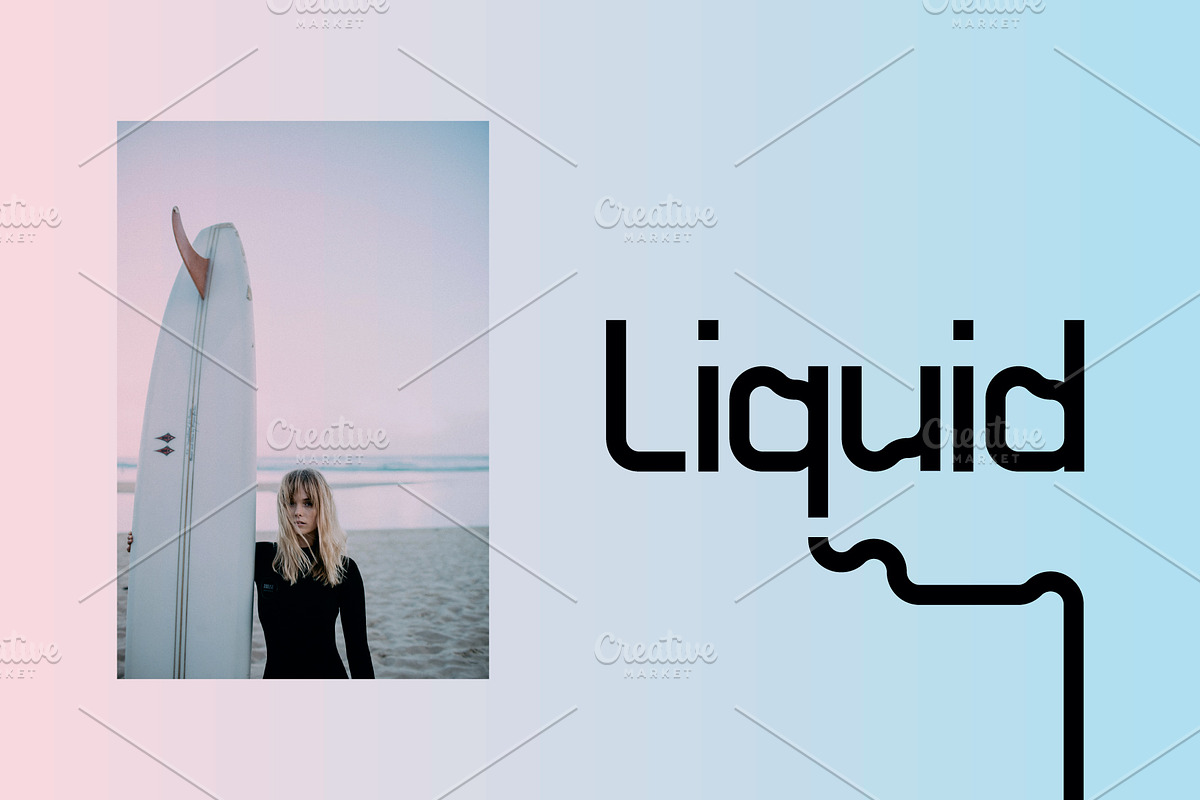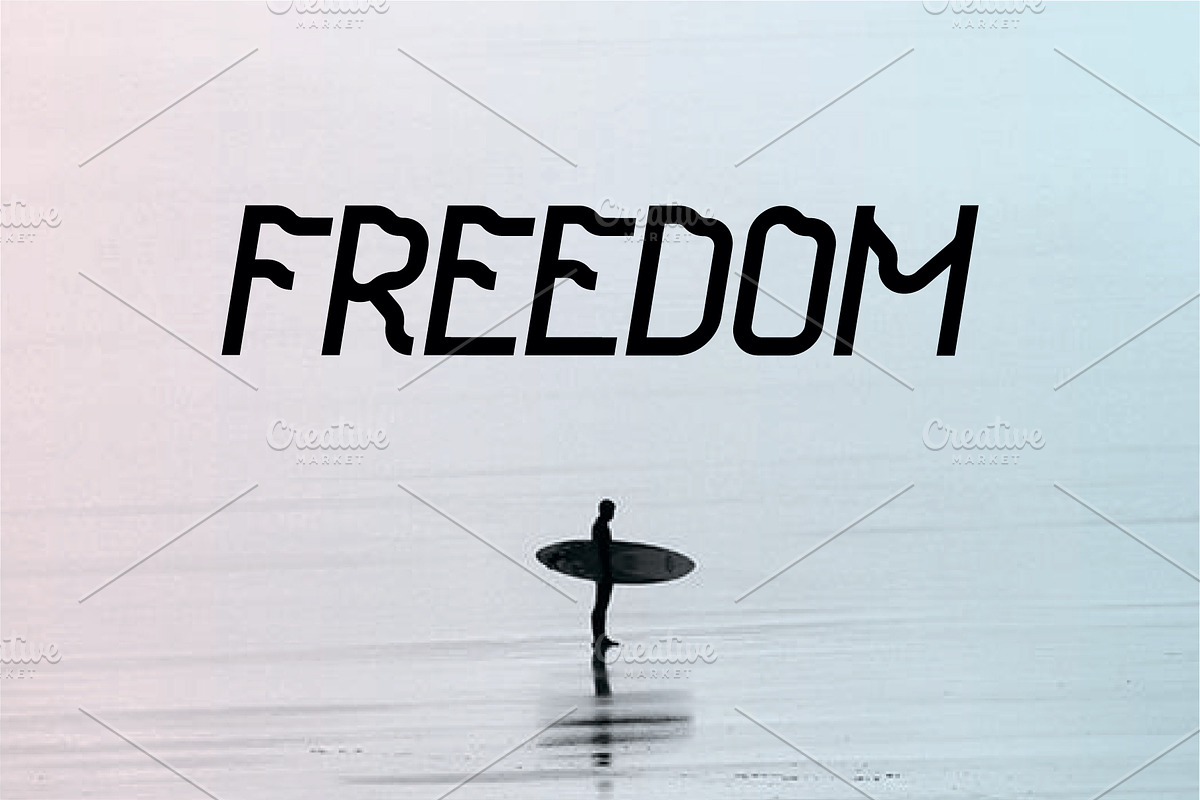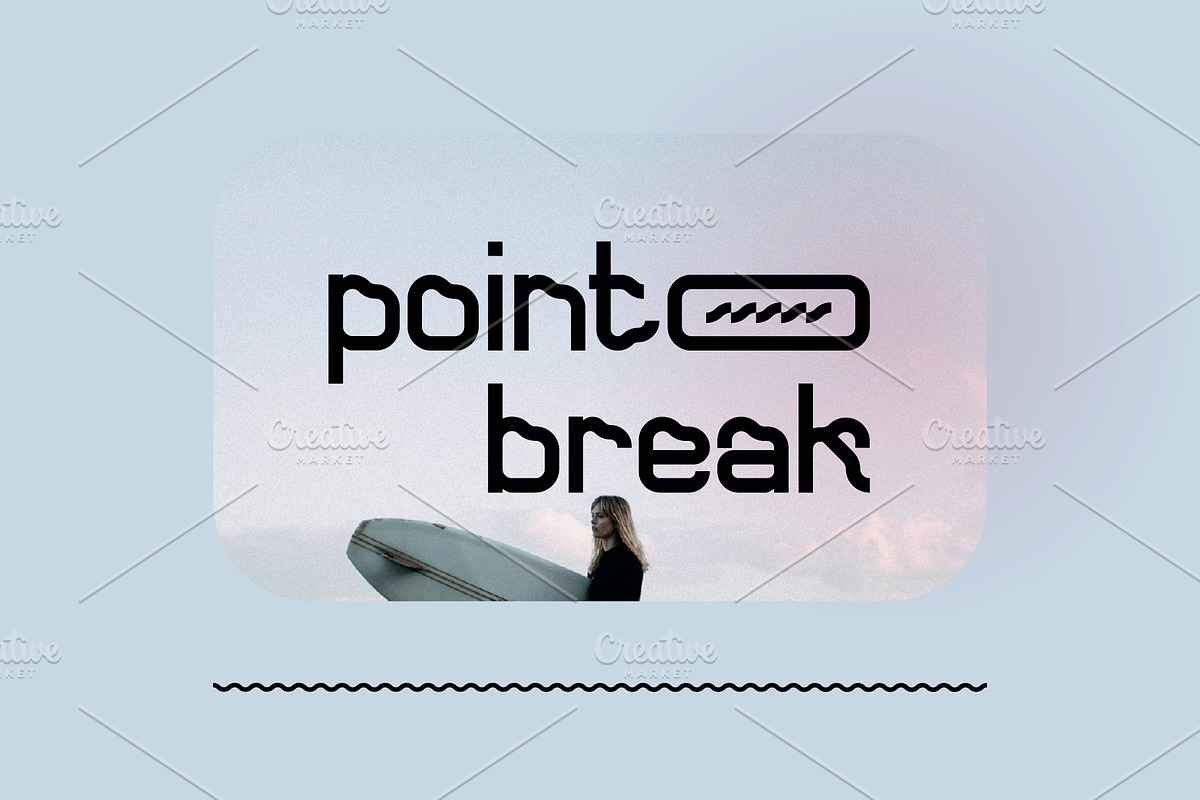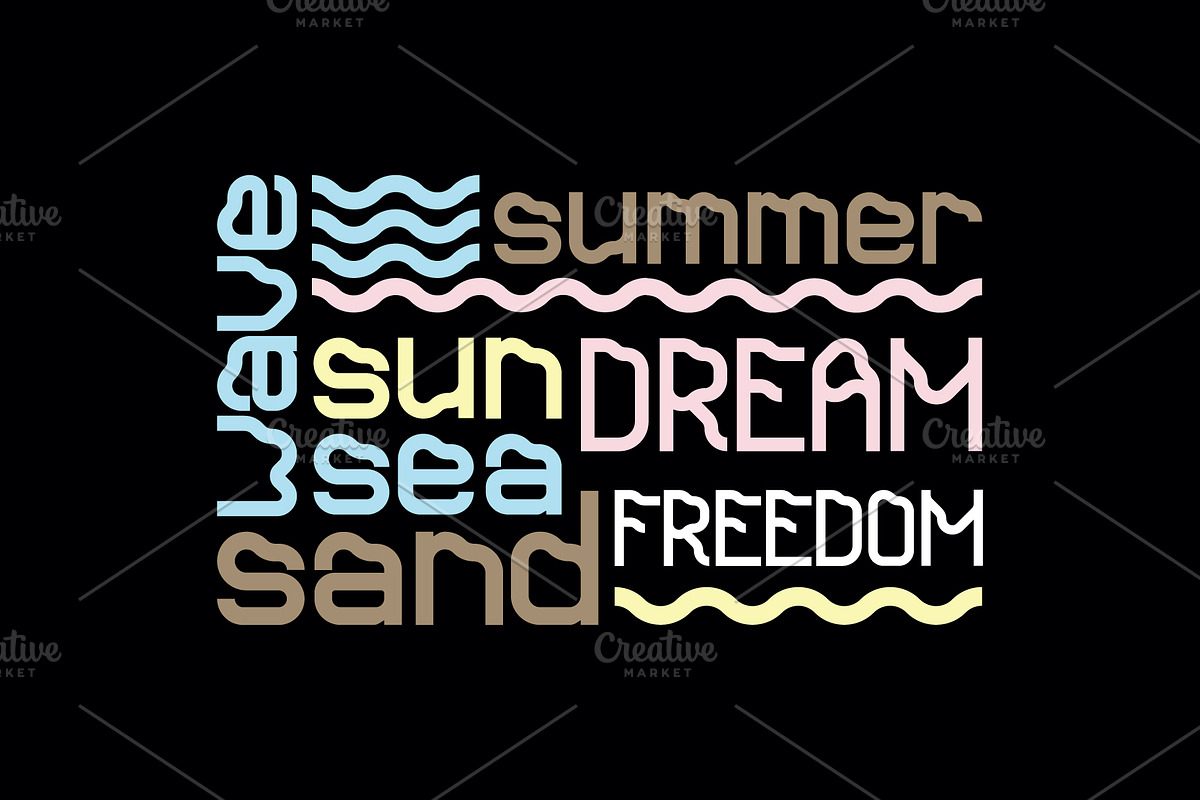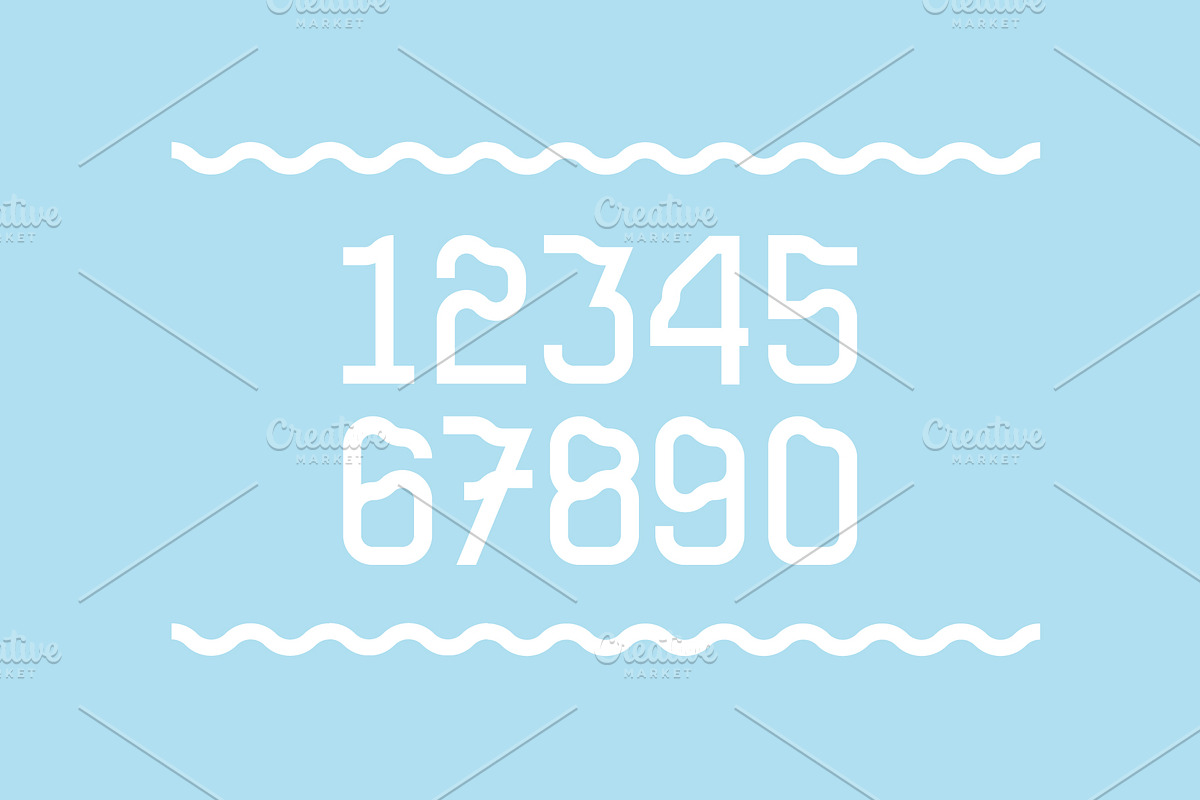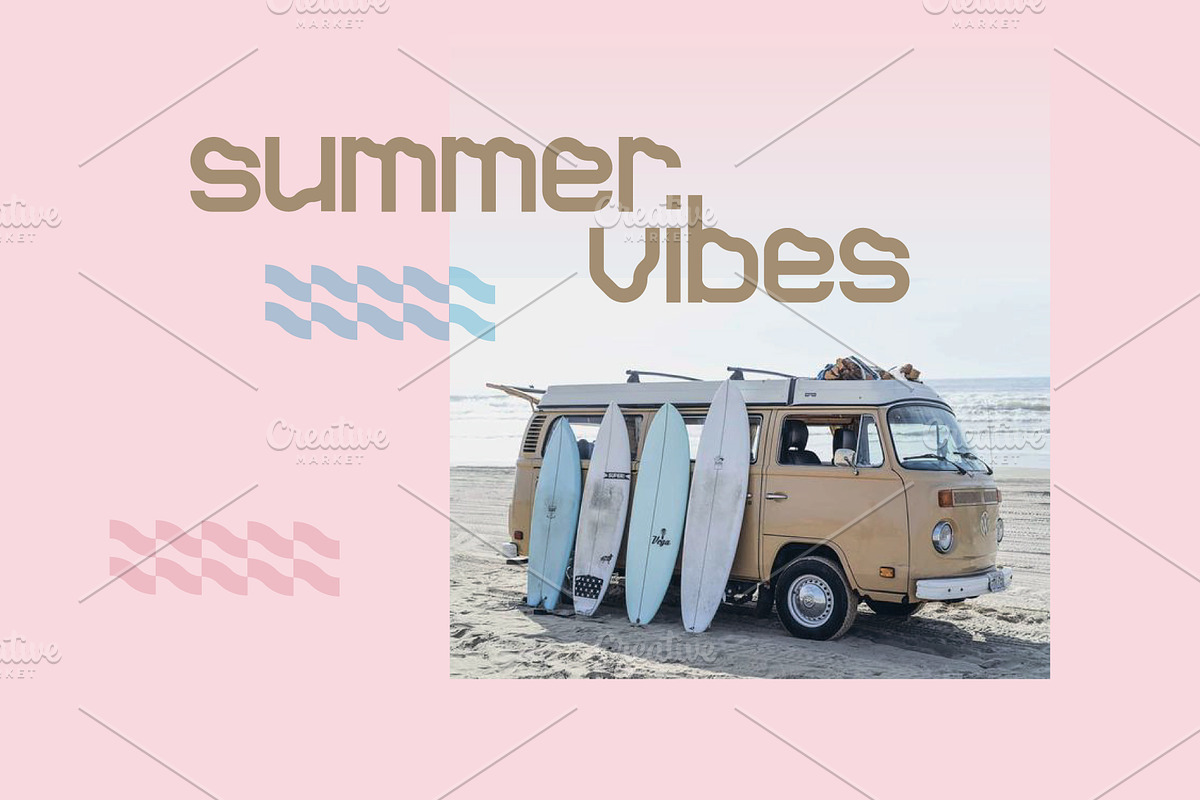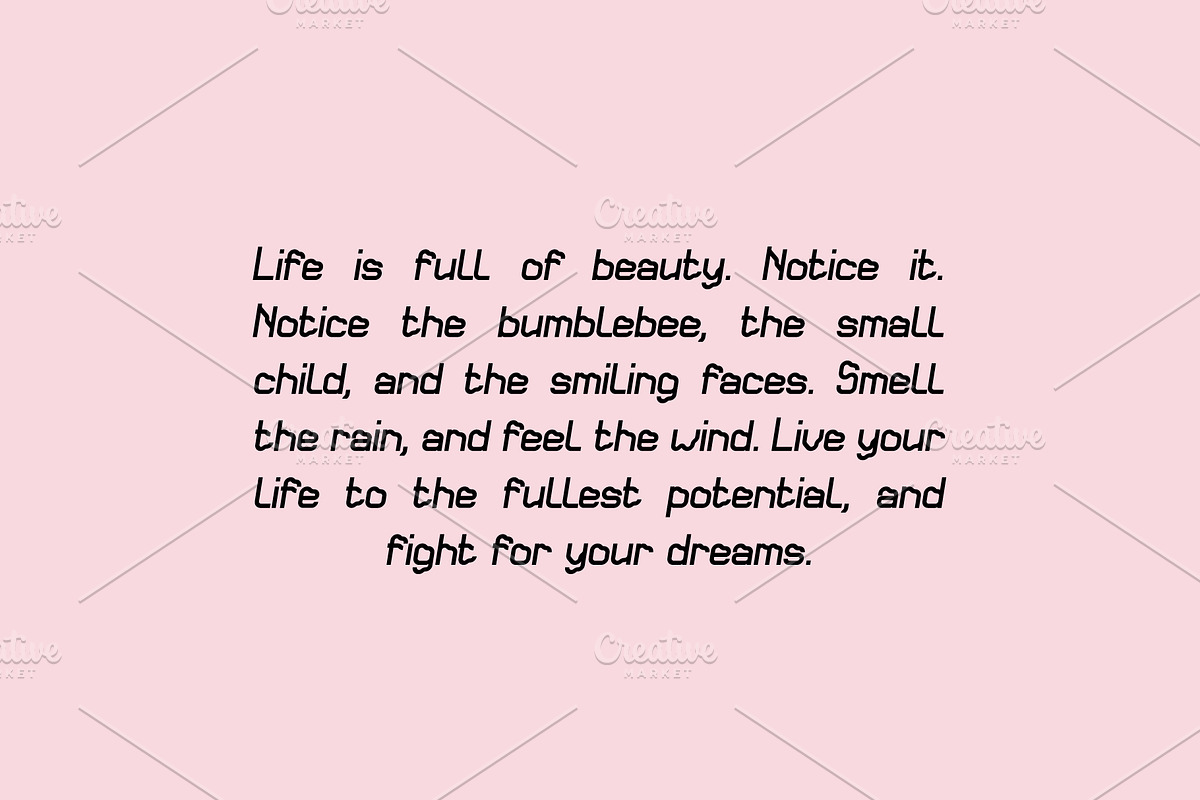
Point Break
Point Break is a geometric wavy typeface. Poin Break includes 4 fonts : Regular, Italic, Regular Capital and Italic Capital. Capital font includes only uppercase. Point Break works in any branding, logos, magazines, films. If you have any questions about licensing, need help with a typeface, or would like to request a new feature, contact me.